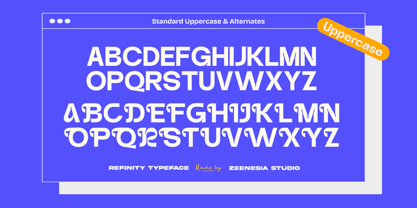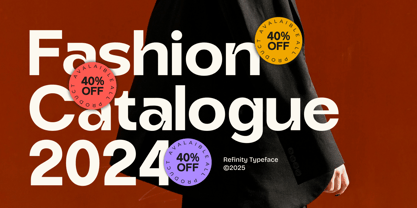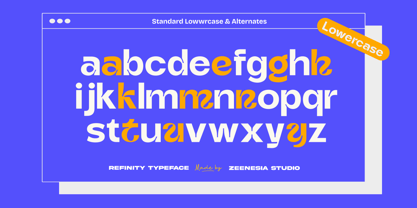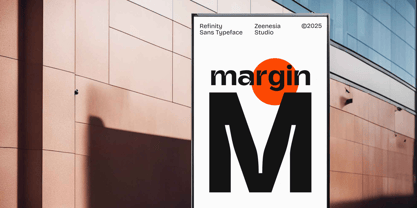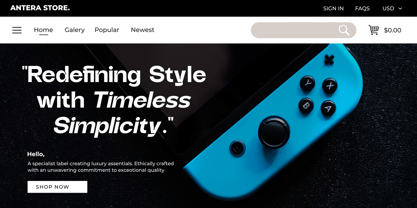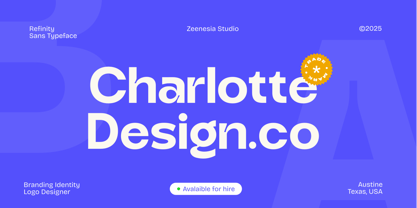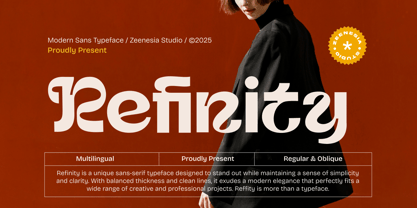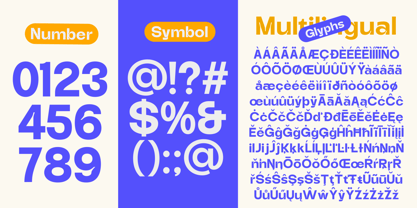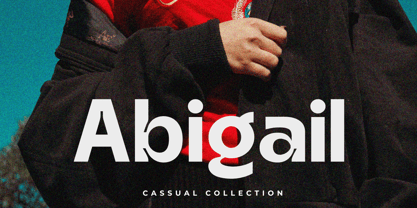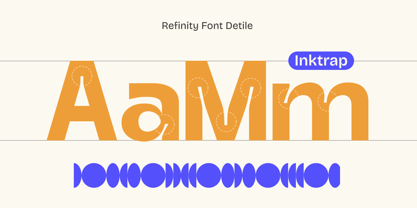
Refinity
by Zeenesia Studio
The Refinity Font Family was designed by Doni Purwoko and published by Zeenesia Studio. Refinity contains 2 styles and family package options. More about this family
Refinity – A Modern Sans-Serif Masterpiece
Refinity is a sleek and contemporary sans-serif font that embodies elegance and clarity. Designed with precision and attention to detail, this font is perfect for modern branding, editorial design, and user interfaces. Its clean lines and balanced proportions make it both versatile and timeless, suitable for any creative project.